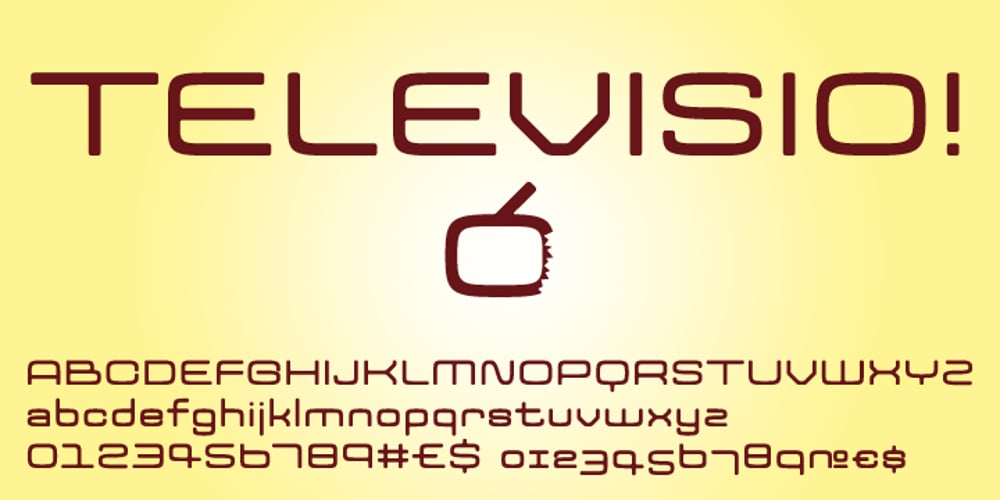
Televisio Font Family was designed by Tomi Haaparanta and published by Suomi. Televisio contains 1 styles and family package options. Televisio is a headline font witha technical retro feel.